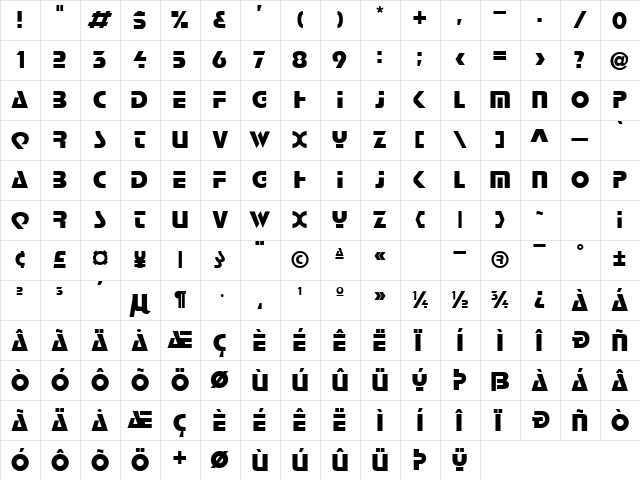
GE Voyage Regular
Design Context for GE Voyage Typeface
GE Voyage is a composed and adaptable typeface that performs quietly and consistently across a wide range of design contexts.